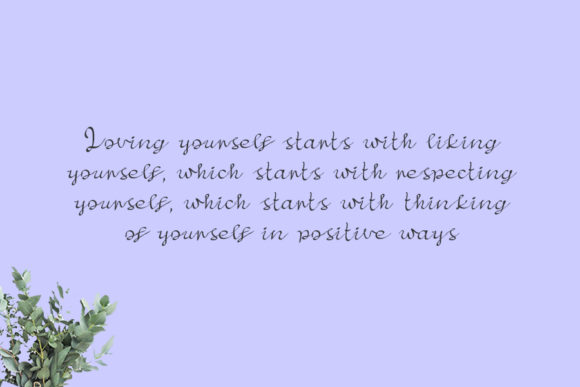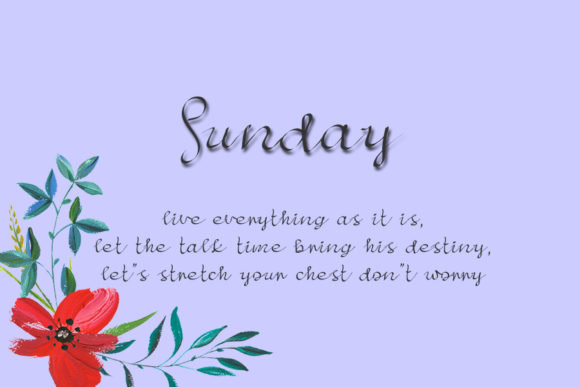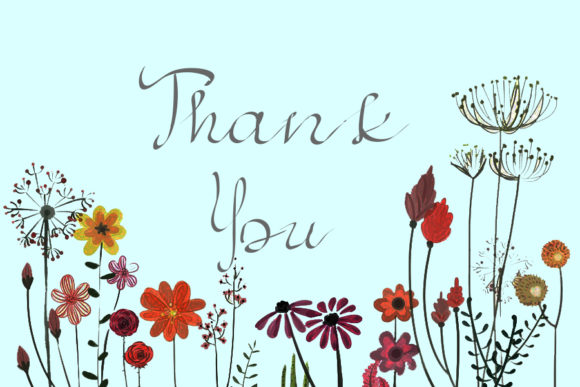
Handwritten Font
About Handwritten Font
Handwritten is a delicate and joyful script font. This versatile script font has a wide spectrum of applications ranging from greeting cards to headlines and is guaranteed to add a romantic feel to your next project.